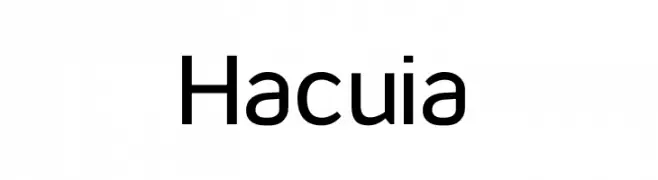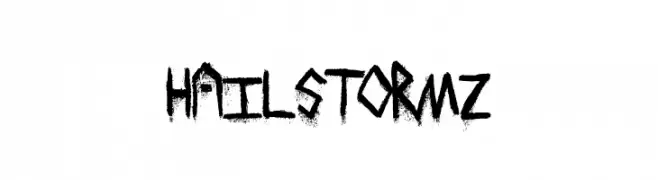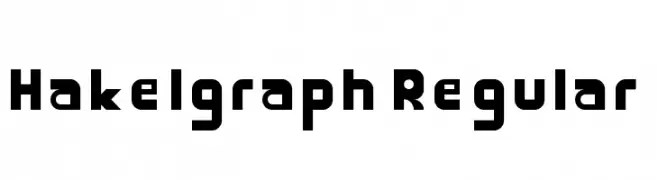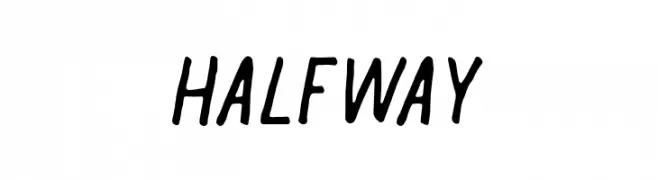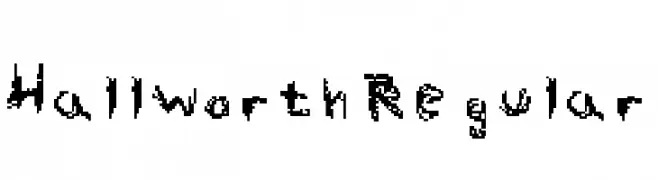
A modern, clean sans-serif font with uniform stroke width and minimalistic design.
A bold, distressed font with a grunge-like, hand-drawn appearance.
A bold, geometric font with a modern, industrial aesthetic.
A playful, handwritten font with smooth, slanted strokes.
A spooky, dripping font ideal for Halloween themes.
A whimsical, hand-drawn font with irregular, artistic strokes.
A bold, dynamic script font with flowing, cursive letterforms.